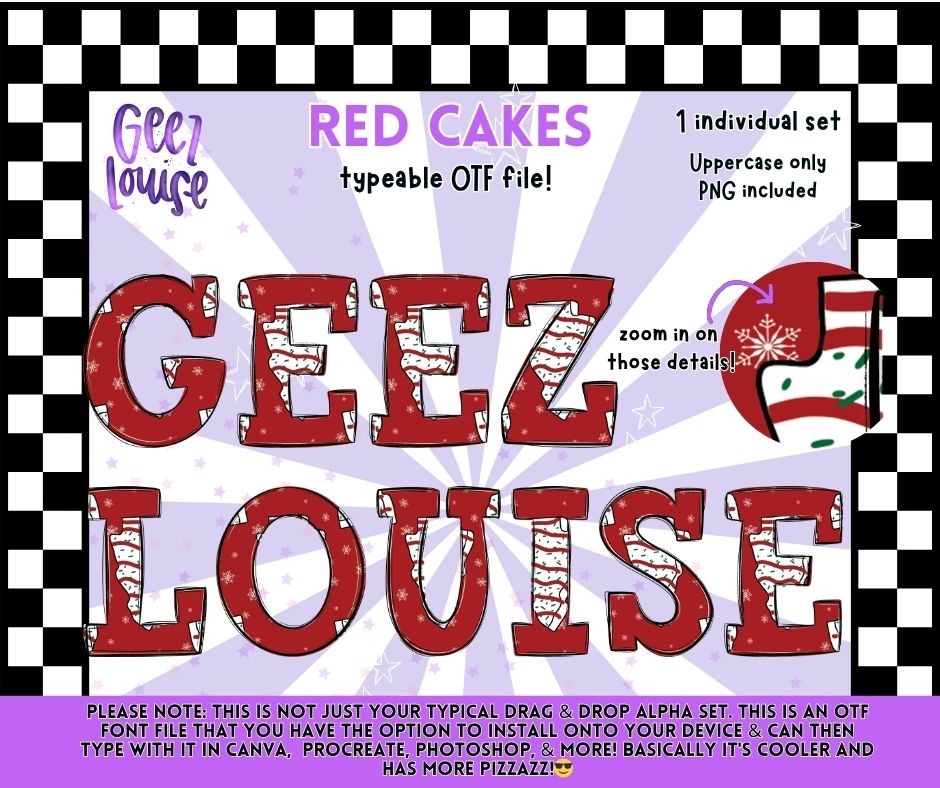
Red Cakes Alpha – Christmas Pattern Typeable OTF Font with PNG Letters (Uppercase)
Add holiday sweetness to every design with the Red Cakes Alpha OTF Font — a fully typeable font covered in playful Christmas patterns! Candy cane stripes, sprinkles, stockings, and festive icing give each letter delicious seasonal charm.
Add a little sugar & extra cheer to your seasonal lineup with this festive font! 🍪❤️✨